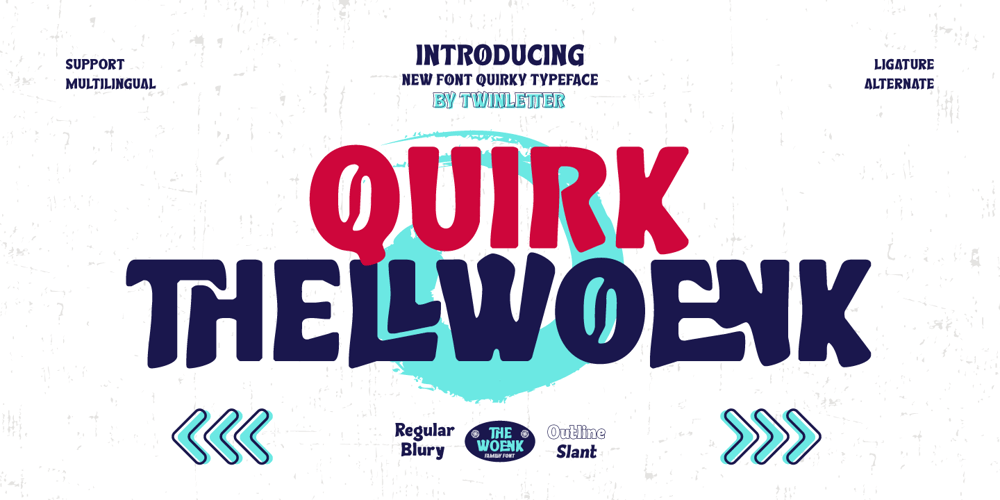
Quirk Thellwoenk
Quirk Thellwoenk font
Quirk Thellwoenk Font Family was designed by Rozikan and published by Twinletter. Quirk Thellwoenk contains 4 styles and family package options. Welcome creativity and uniqueness with Quirk Thellwoenk, a display font full of fun and a touch of quirky. Designed with unique and eccentric details, each Quirk Thellwoenk letter brings a fresh and different feel to your design project.Quirk Thellwoenk offers the ability to provide a fun and refreshing presence. With an eccentric design and striking uniqueness, this font is suitable for titles, posters, or other design elements that require a quirky feel and are full of character.Quirk Thellwoenk’s advantage lies in its ability to create a bright and pleasant atmosphere. With each letter having its character, this font gives a creative and energetic impression to your design projects.With Quirk Thellwoenk, bring fun and uniqueness to your designs. Let each letter express your creativity, adding a quirky element that makes your project different and full of fun.